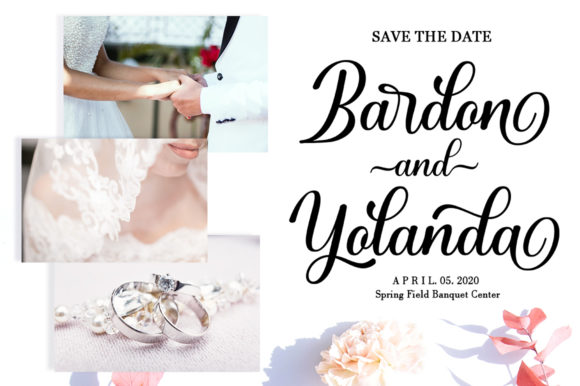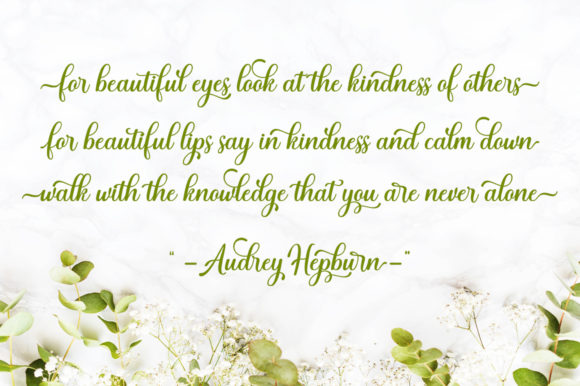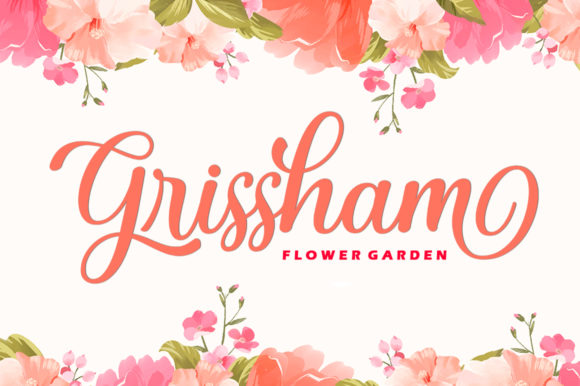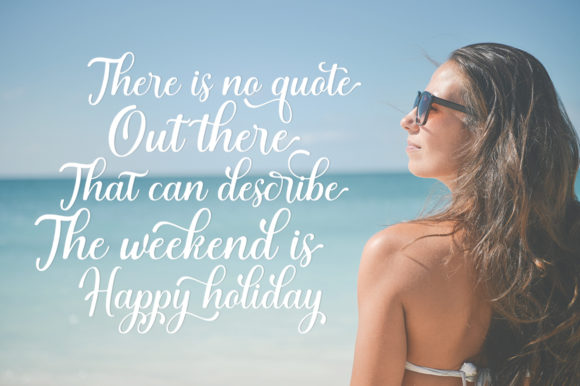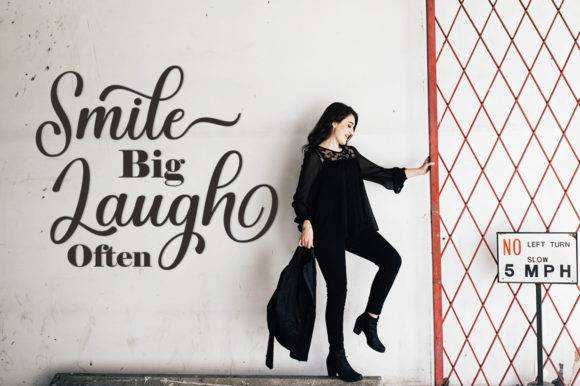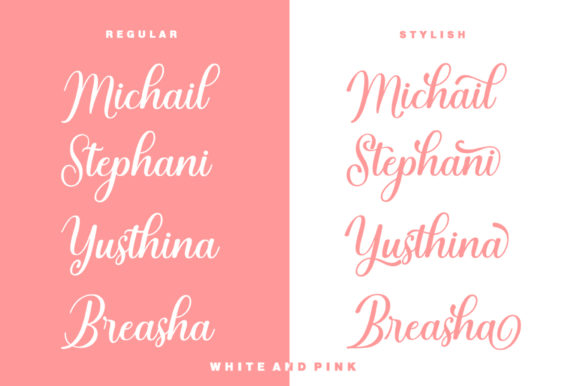
Introduction to Misha Gergoval Font
Misha Gergoval is a magical script font carefully created with a touch of elegance.
This is a beautiful combination of timeless elegance and authentic calligraphy It features an incredibly classic style, while still keeping a friendly feel.